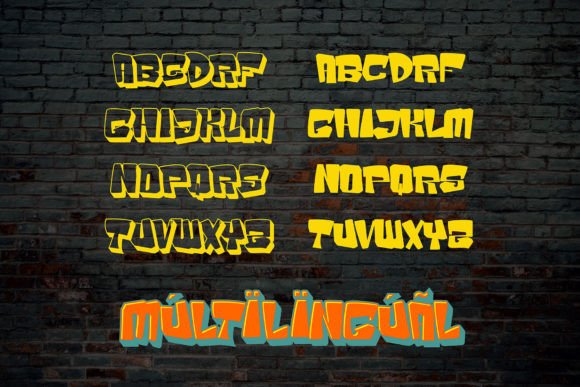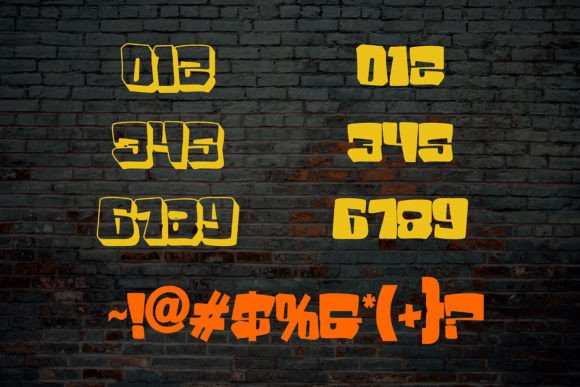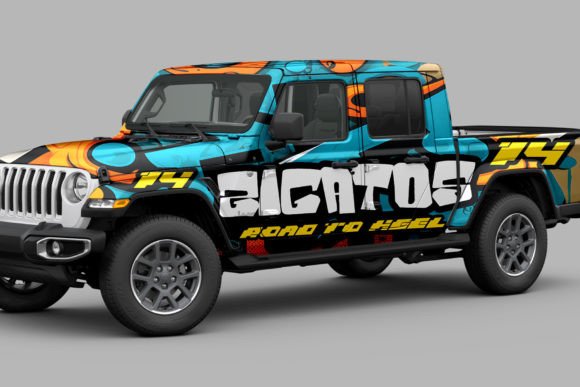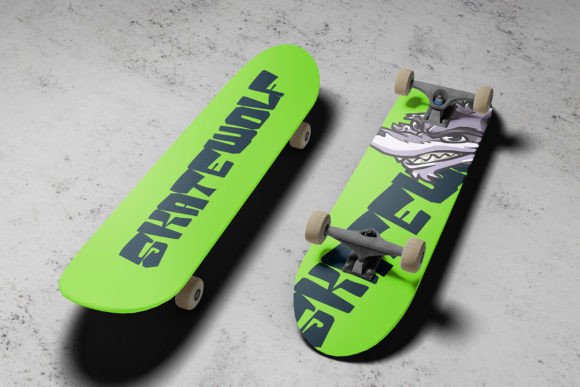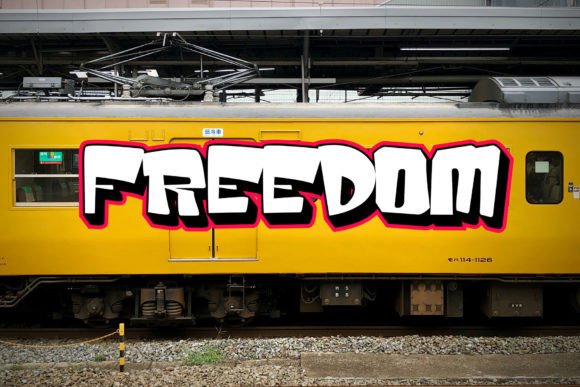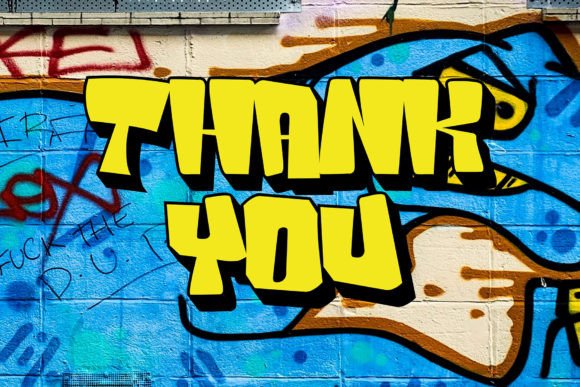
Introduction to Badge Robo Font
“Badge Robo” is a 3D display graffiti font with very bold and impactful characters.
Fonts like this are often used in designs where you want to create a bold, attention-grabbing, and three-dimensional text effect This style can be seen in various design applications, including street art, posters, or any project where you want your text to stand out prominently.
Key Features of Badge Robo Font